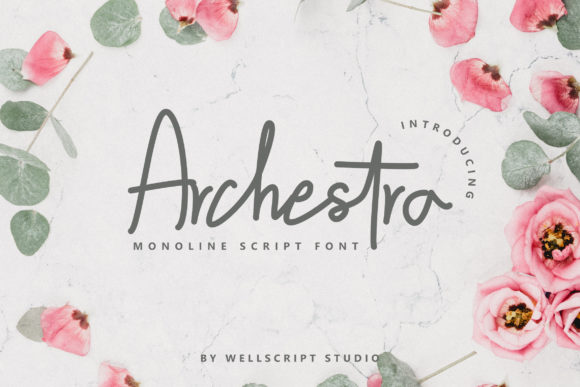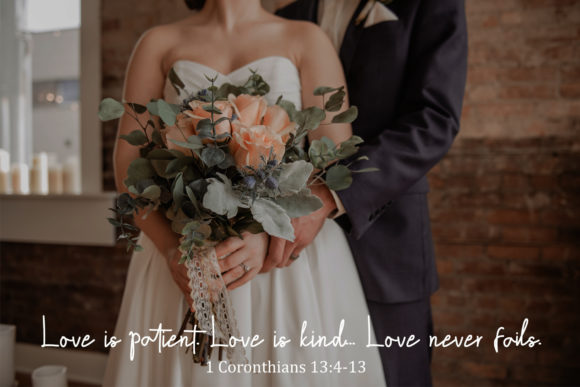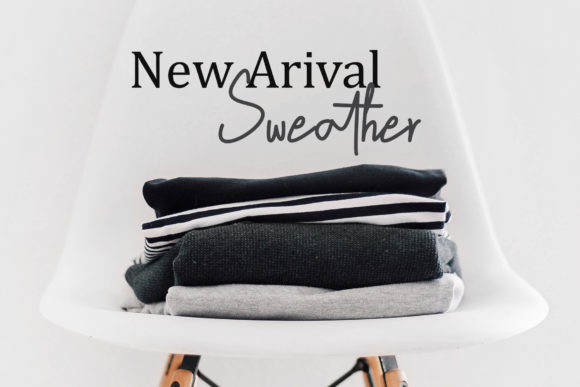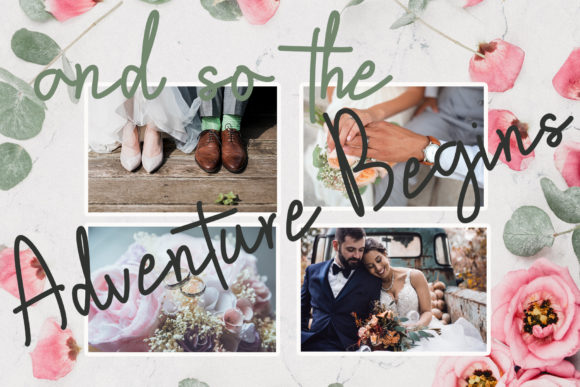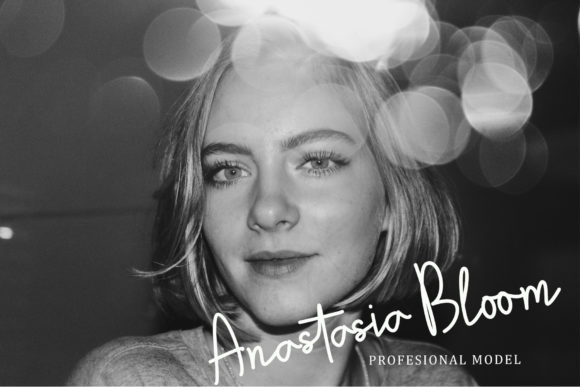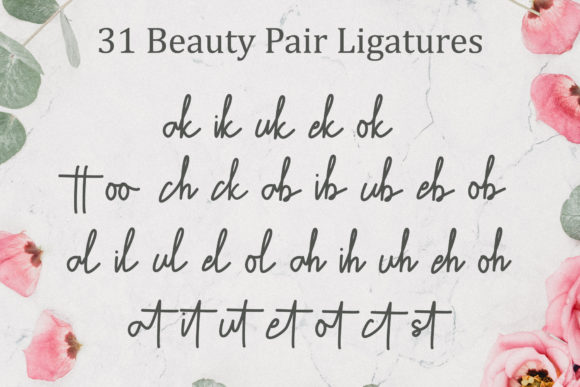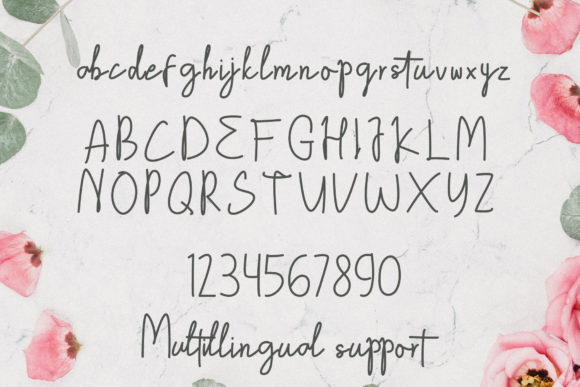
Archestra Font
About Archestra Font
Archestra feels equally beautiful and elegant, which makes it the perfect font for a wide variety of crafting projects. Fall in love with its unique charm, and turn any design idea into a true standout!